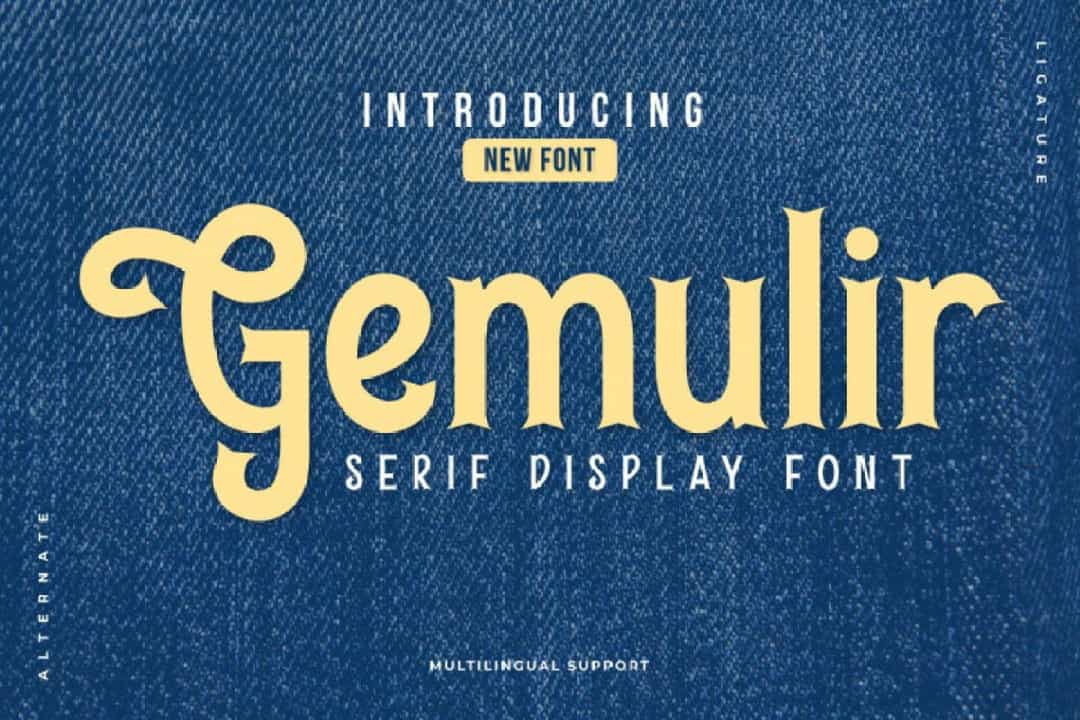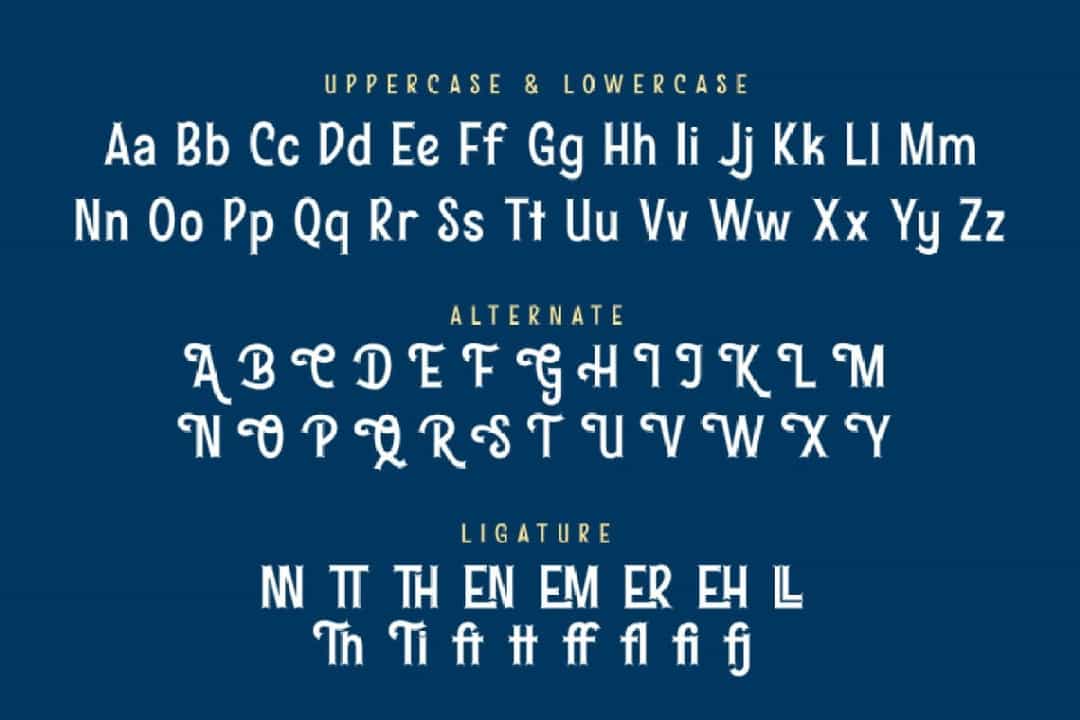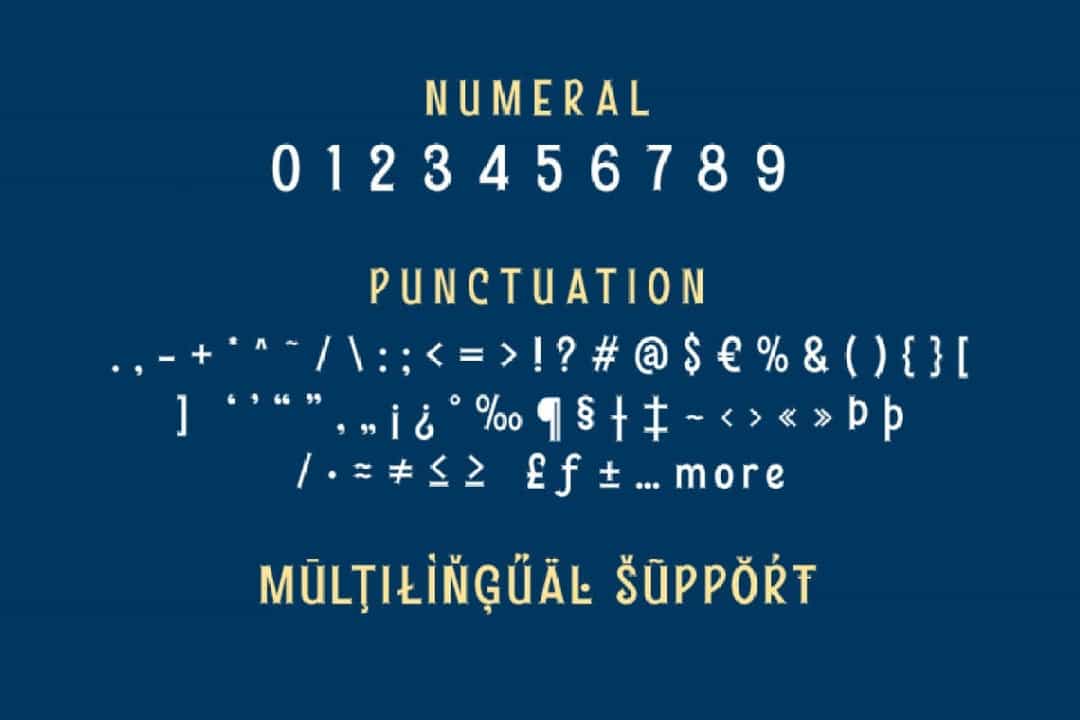
Discover Gemulir Font, part of the Serif Display collection—a versatile and unique font perfect for adding a personal touch to your projects. Download it for free and enjoy crafting designs with style, from invitations to social media posts. This font is available exclusively for personal use, giving you the freedom to create without limits. Unlock your creativity with Gemulir Font today!
Gemulir is an exquisite example of classic serif fonts for display, featuring elegant lines and smooth characters for an enduringly beautiful design. Perfect for documents, marketing material and web designs alike – Gemulir offers timeless style!